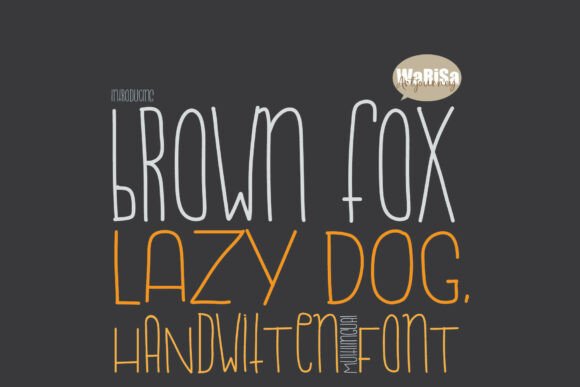
The Ultimate Guide to Brown Fox Lazy Dog Font: Elevate Your Designs with a Single Line Sketch Font
Have you ever been in the middle of a design project, and suddenly, you realize that your font just isn’t cutting it? 🤔 I recall a particularly frustrating experience while working on a client’s greeting card project. I was using a font that looked great in theory, but when I tried to use it with my Cricut machine, it drew double outlines, completely ruining the design. 😩 It was then that I discovered the Brown Fox Lazy Dog Font – a game-changing single line sketch font that has since become a staple in my design toolkit.
What Makes Brown Fox Lazy Dog Font Special?
The Brown Fox Lazy Dog Font is specifically designed for cutting and drawing machines, making it perfect for crafters, designers, and creative hobbyists. This thin and minimalist font works flawlessly with Cricut (using the Draw/Sketch feature), Silhouette (Sketch Pen), and other plotters that require a genuine single-stroke, monoline design.
- ✨ Perfect for single line designs: This font is designed to work seamlessly with cutting and drawing machines, making it ideal for single line designs.
- ✅ Works with multiple platforms: From Cricut to Silhouette, this font is compatible with a range of machines and software.
- 🎨 Handwriting style: The Brown Fox Lazy Dog Font has a playful, cute handwriting style that’s perfect for a variety of design projects.
- ⚠️ Limited use in large text sizes: While this font is perfect for small to medium-sized text, it may not be the best choice for large text sizes.
- 🤔 May not work well with all paper types: As with any font, the quality of the design may vary depending on the paper type and machine used.
The Designer Inspiration Behind Brown Fox Lazy Dog Font:
The Brown Fox Lazy Dog Font was inspired by the simple, elegant lines of handwriting. The designer wanted to create a font that was both playful and cute, yet versatile enough to be used in a variety of design projects. With its single line design and minimalist aesthetic, this font is perfect for crafters, designers, and creative hobbyists who want to add a personal touch to their designs.
| What machines is Brown Fox Lazy Dog Font compatible with? | Brown Fox Lazy Dog Font is compatible with Cricut (using the Draw/Sketch feature), Silhouette (Sketch Pen), and other plotters that require a genuine single-stroke, monoline design. |
| Is Brown Fox Lazy Dog Font suitable for large text sizes? | While Brown Fox Lazy Dog Font can be used for large text sizes, it may not be the best choice. It’s perfect for small to medium-sized text, but may lose its elegance in larger sizes. |
| Can I use Brown Fox Lazy Dog Font with my cutting machine’s software? | Yes, Brown Fox Lazy Dog Font is designed to work seamlessly with cutting and drawing machines, making it perfect for use with software like Cricut Design Space or Silhouette Studio. |